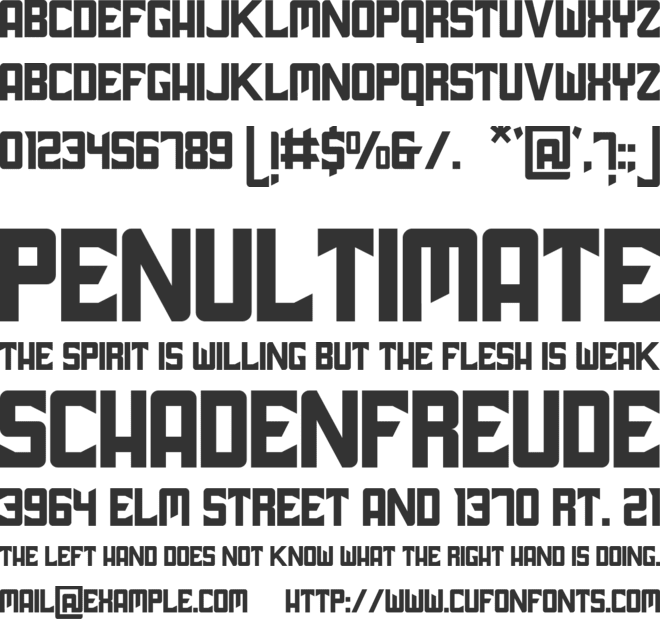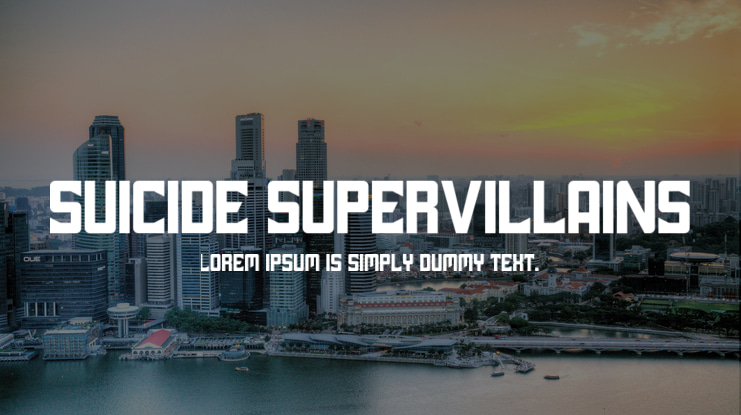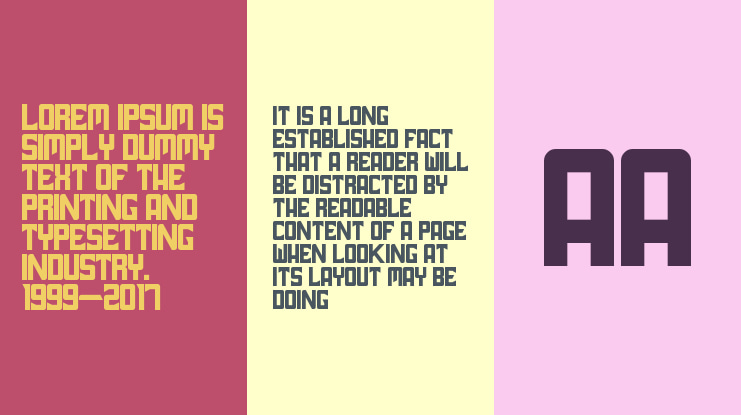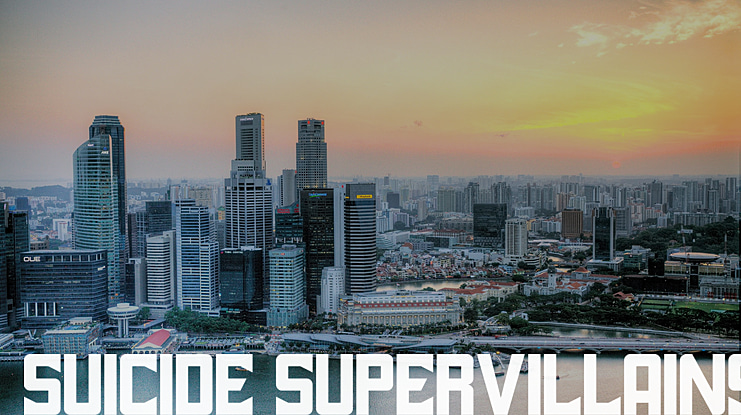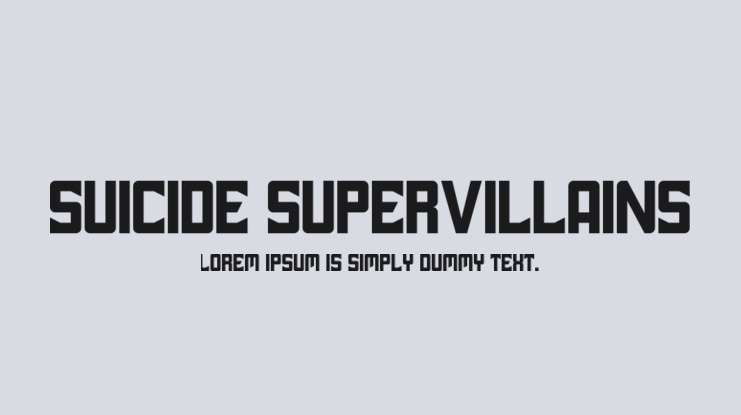
Suicide SuperVillains Font
Hilton Santos
FanFont of the DC Extended Universe 'The Suicide Squad' logo to be released in 2021, and the comics 'Suicide Squad' Volume 1 released in 1987 by DC Comics.